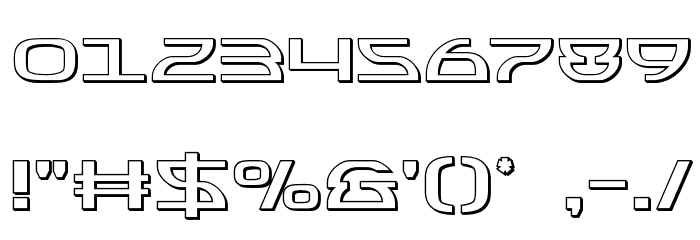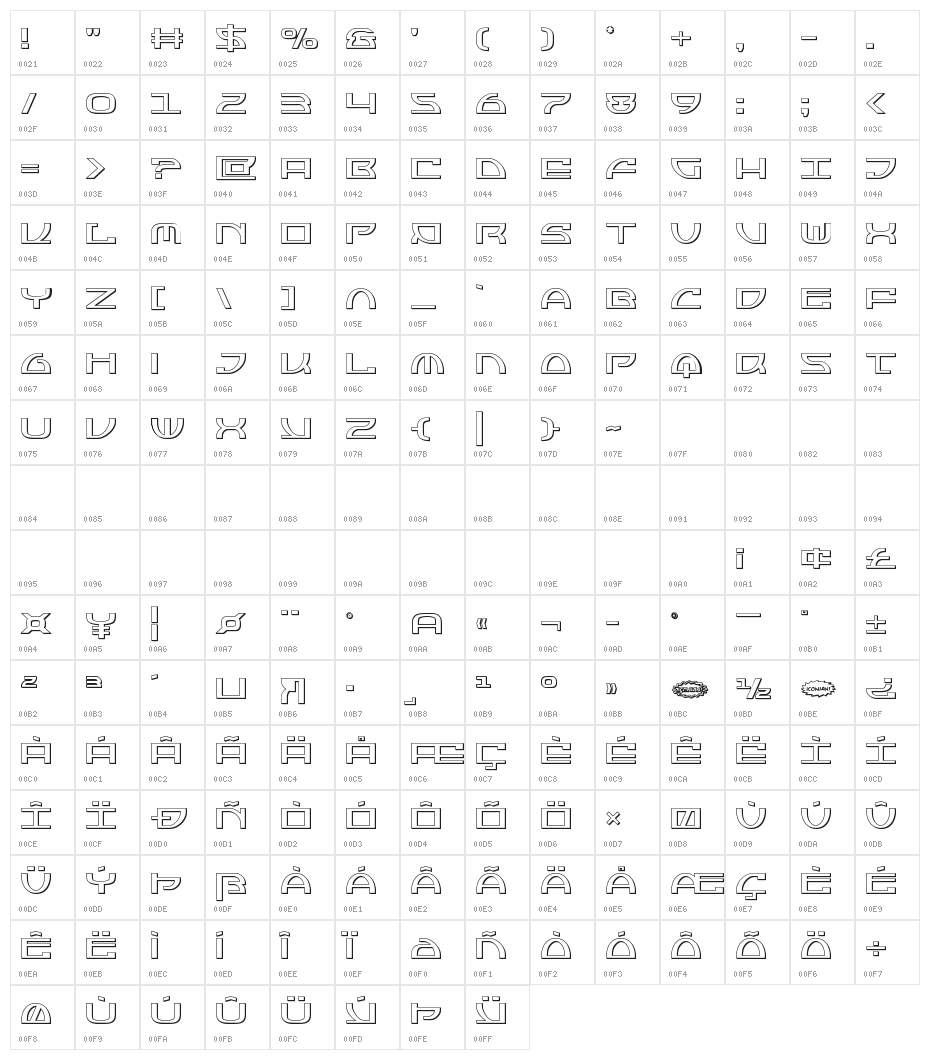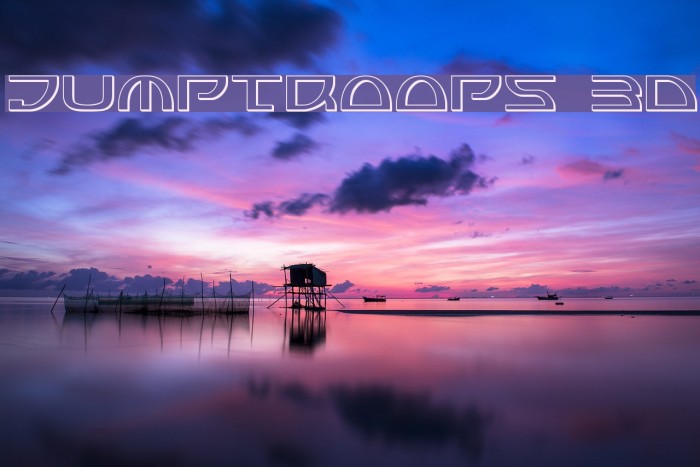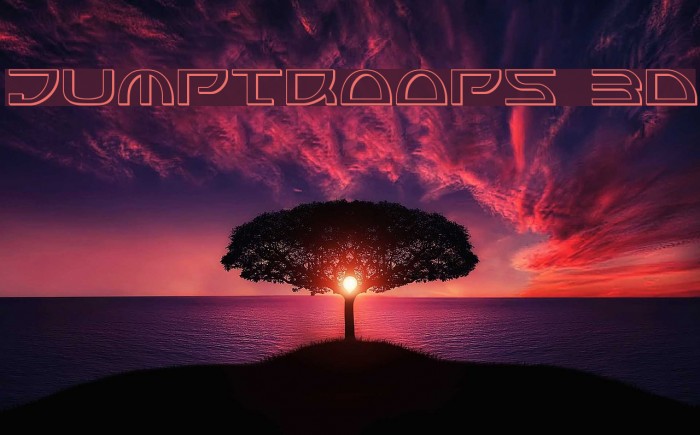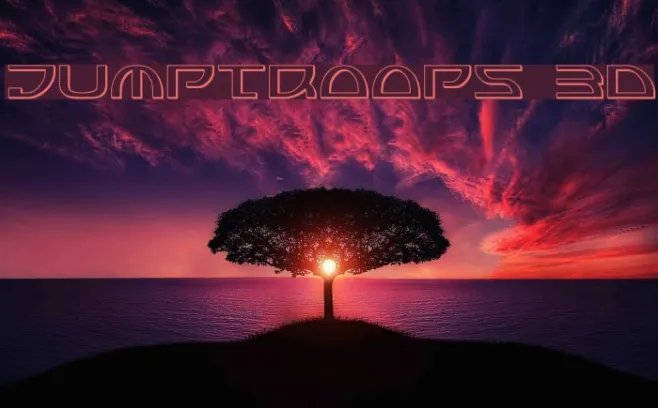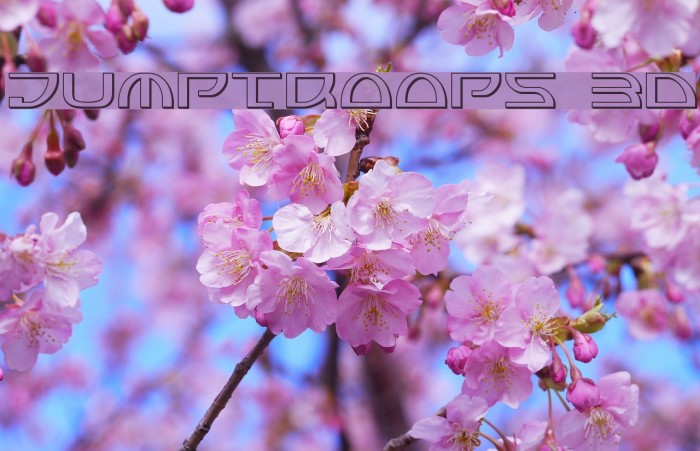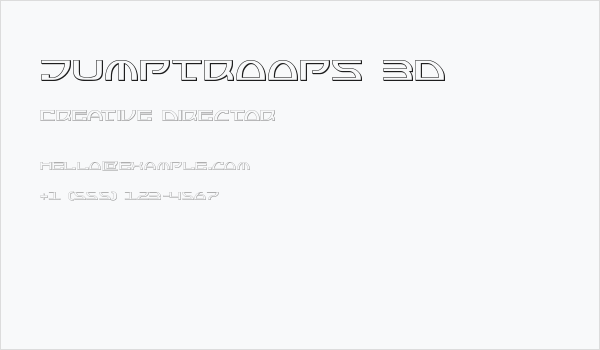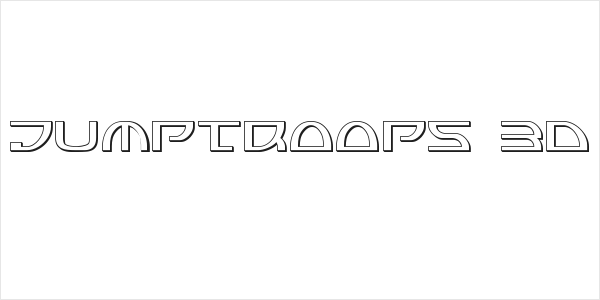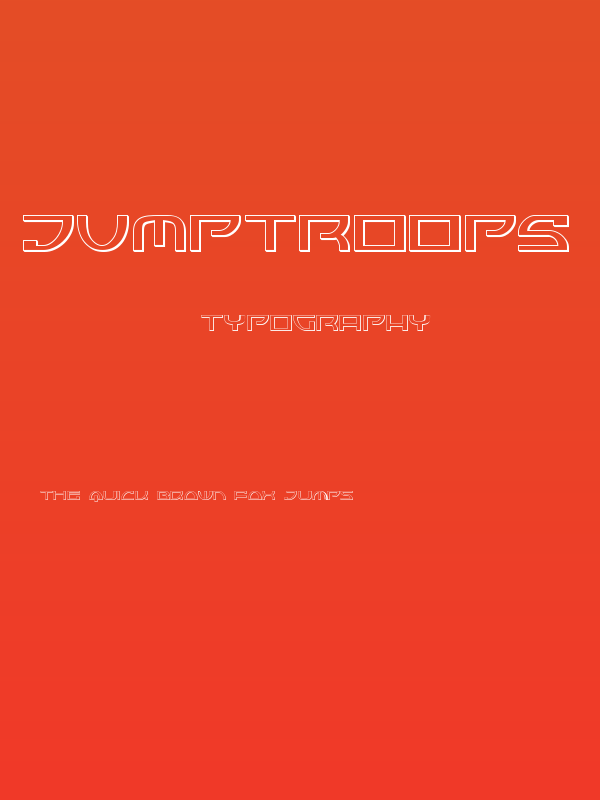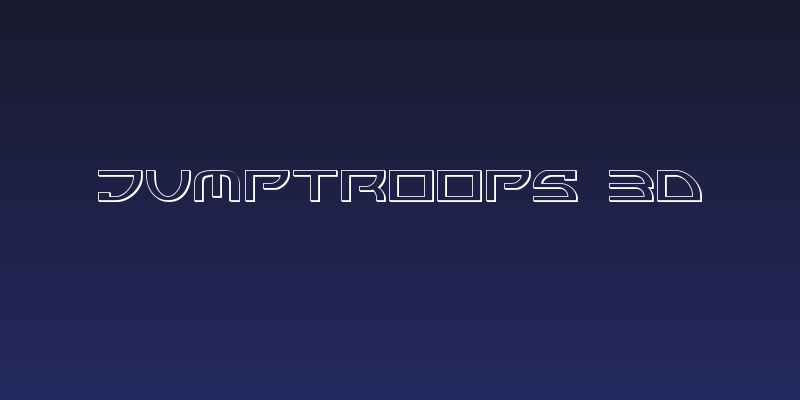
Jumptroops 3D Font
Jumptroops 3D Description
This font features a futuristic and geometric design with a 3D outline effect. The characters are constructed with bold, angular lines that create a sense of depth and dimension. The uppercase and lowercase letters maintain a consistent style, with sharp edges and a uniform structure. The numbers and special characters are designed to match the overall aesthetic, providing a cohesive look. This font is ideal for projects that require a modern and tech-inspired appearance, making it suitable for digital interfaces, gaming titles, and sci-fi themed designs.
| Proposed Projects | Ideal for digital interfaces, gaming titles, sci-fi themed designs, and tech-inspired branding. |